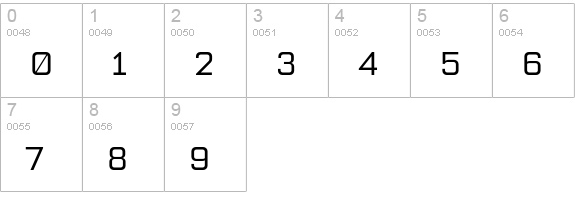
Bourgeois Med Font Details
Bourgeois Med font is a sophisticated and elegant typeface that exudes a sense of luxury and refinement. Its sleek lines and classic design make it perfect for adding a touch of sophistication to any project. The medium weight of the font strikes the perfect balance between readability and style, making it ideal for a wide range of applications. What sets Bourgeois Med font apart is that it is not only visually appealing but also free to download. That's right, you can access this premium font at no cost on FontsMarket.com. Whether you're working on a branding project, creating invitations, or designing a website, Bourgeois Med font will elevate your design and give it a touch of class. Don't miss out on this opportunity to enhance your work with this exquisite and versatile typeface. Download Bourgeois Med font today and see the difference it can make in your projects.